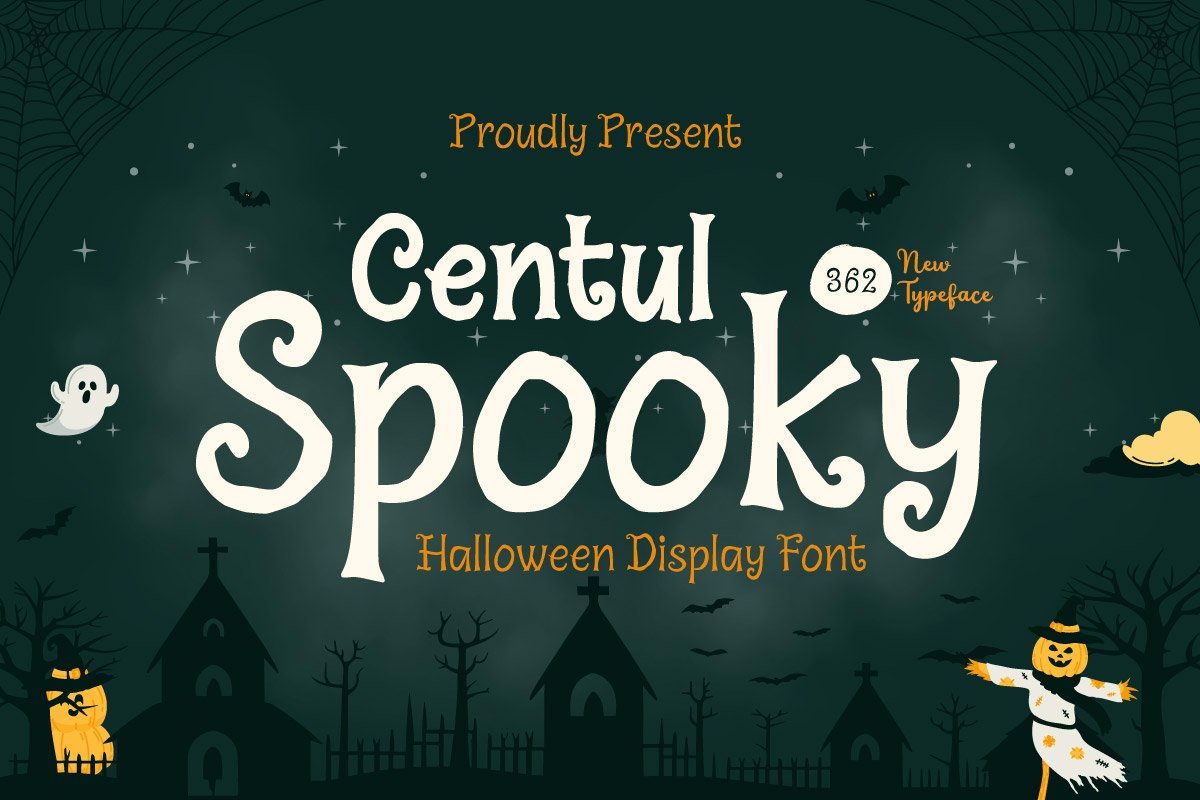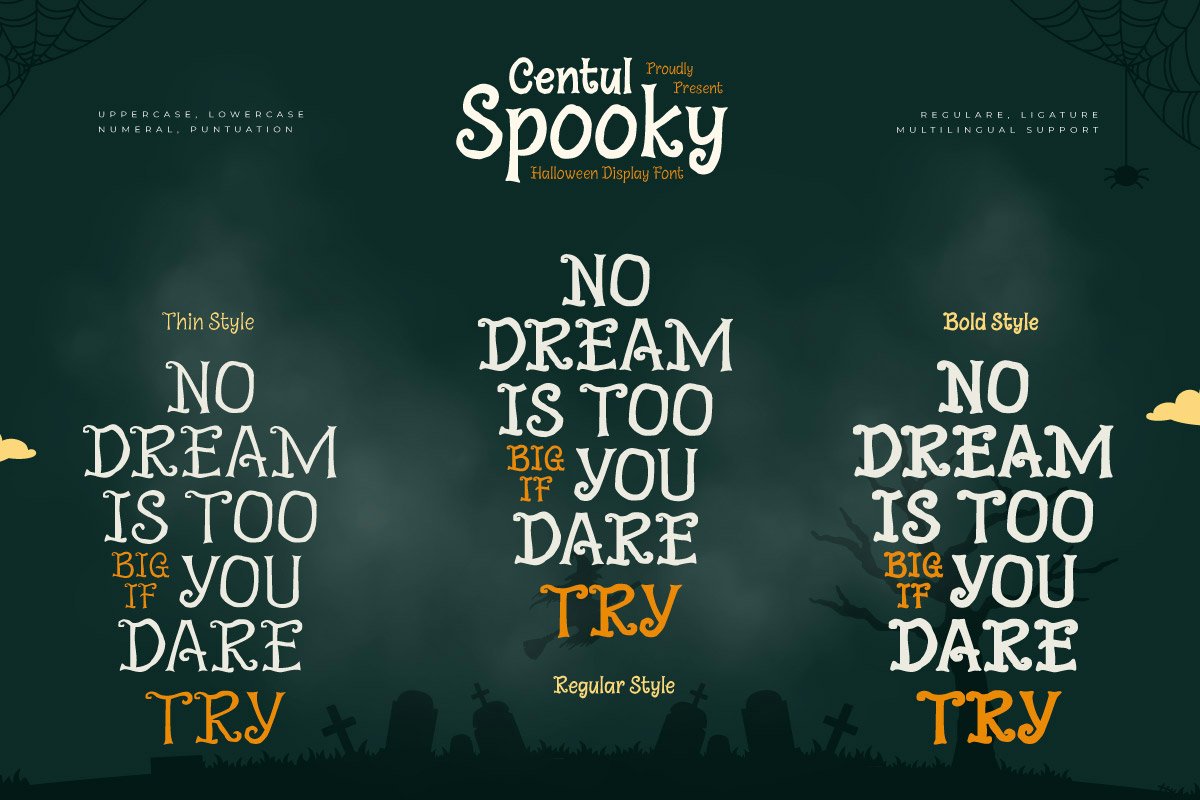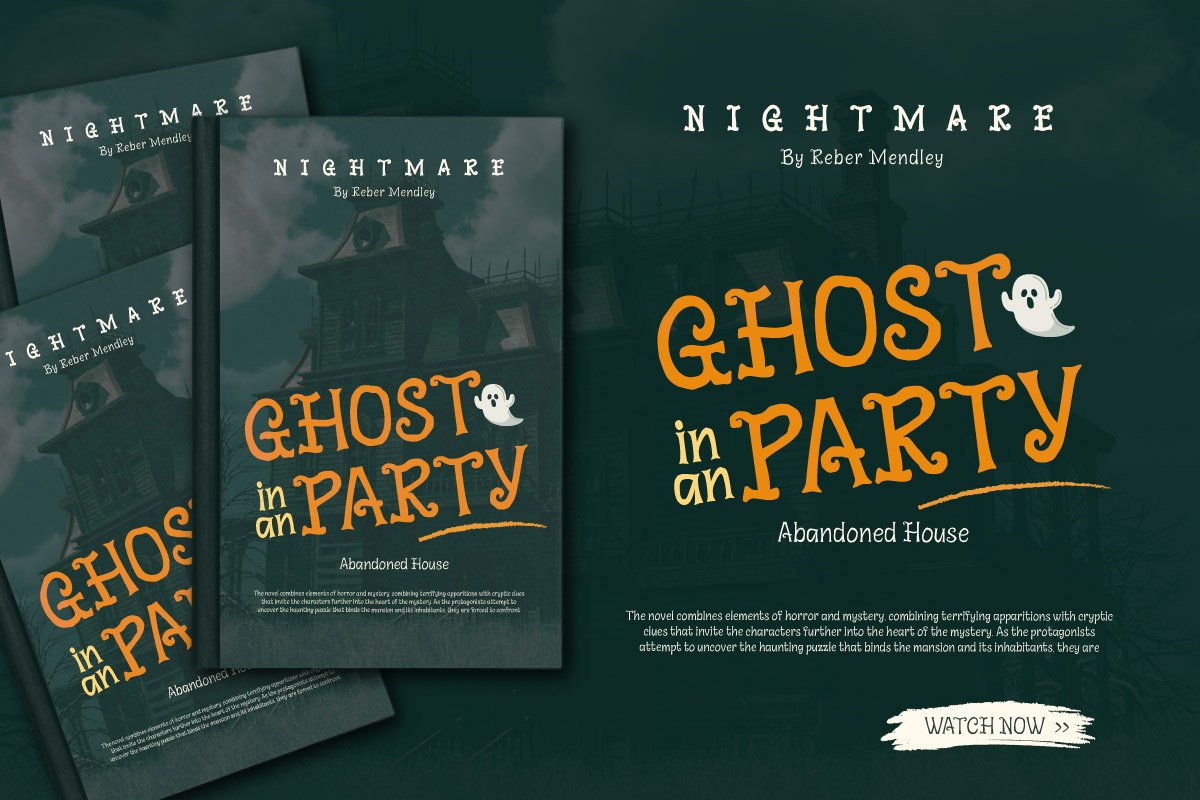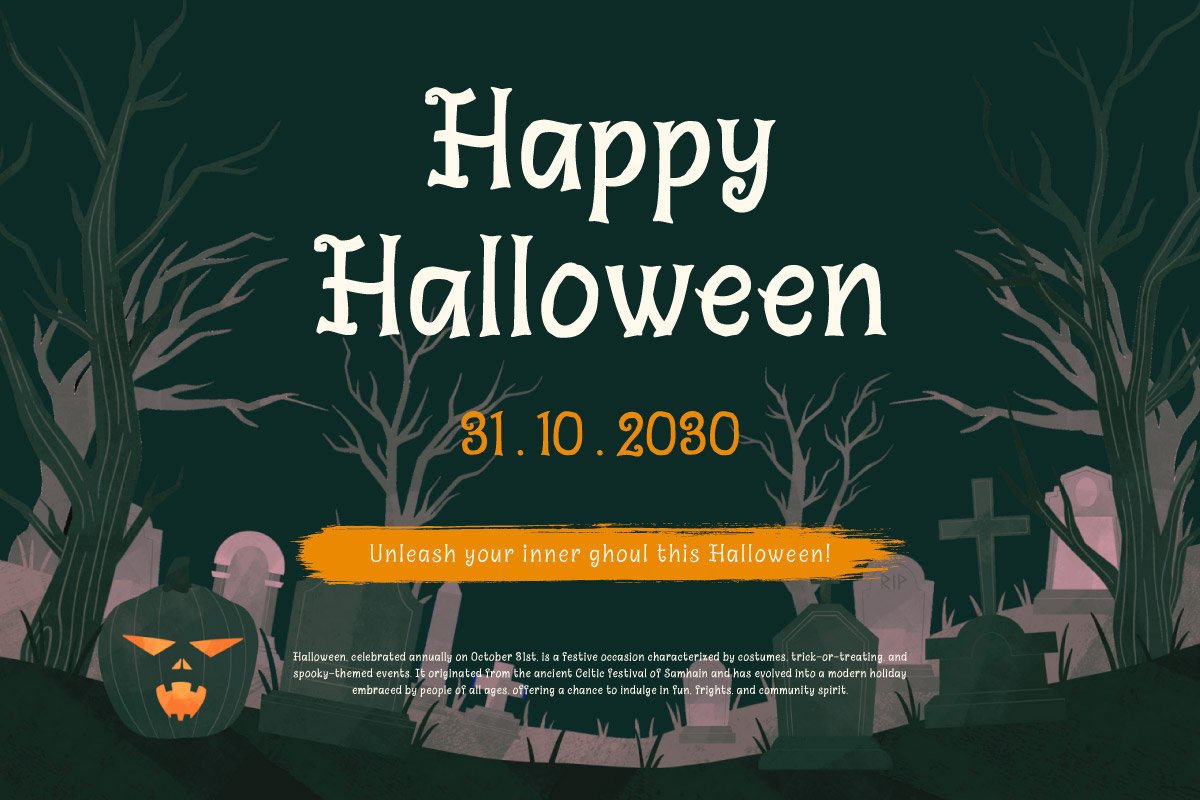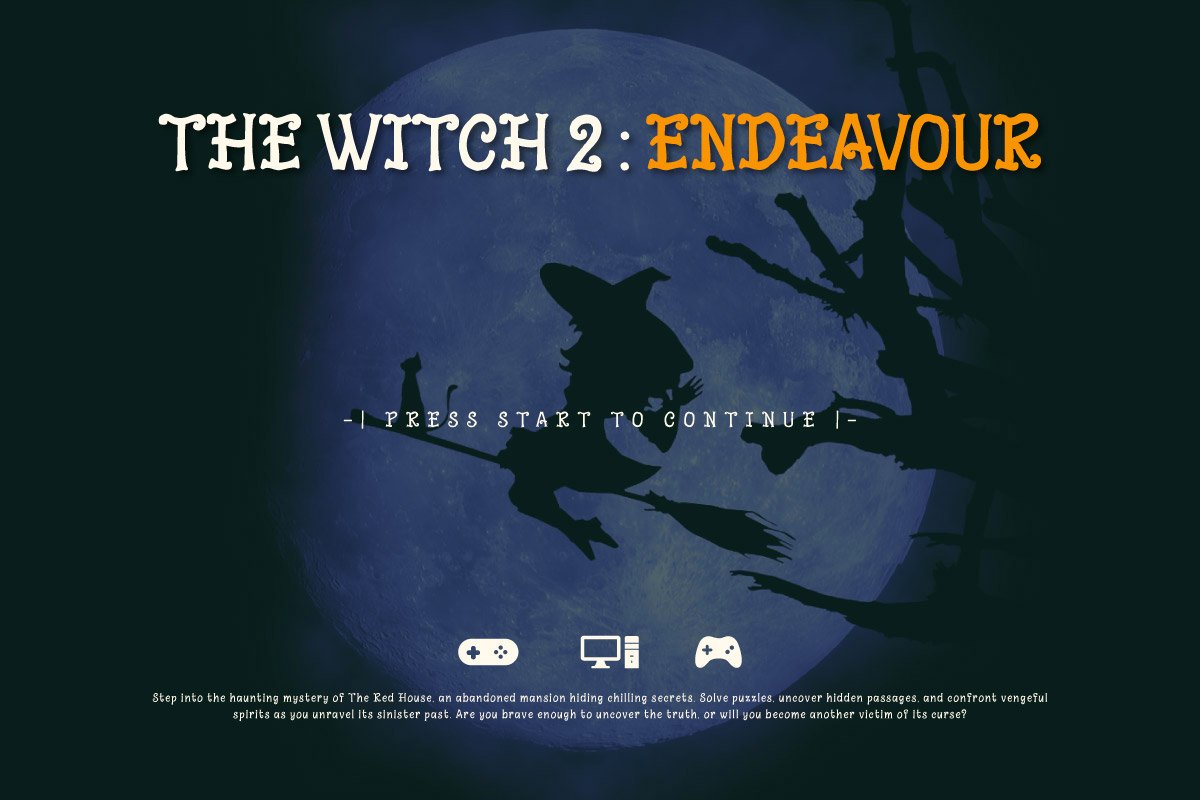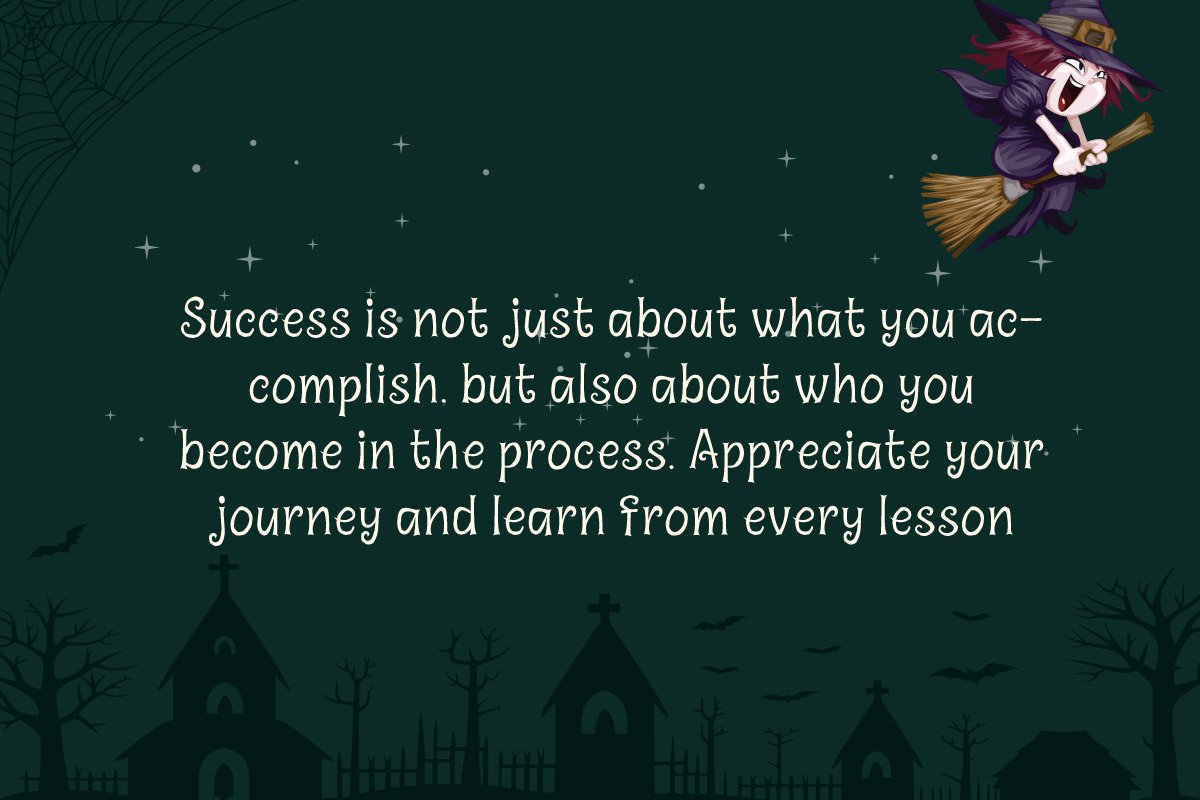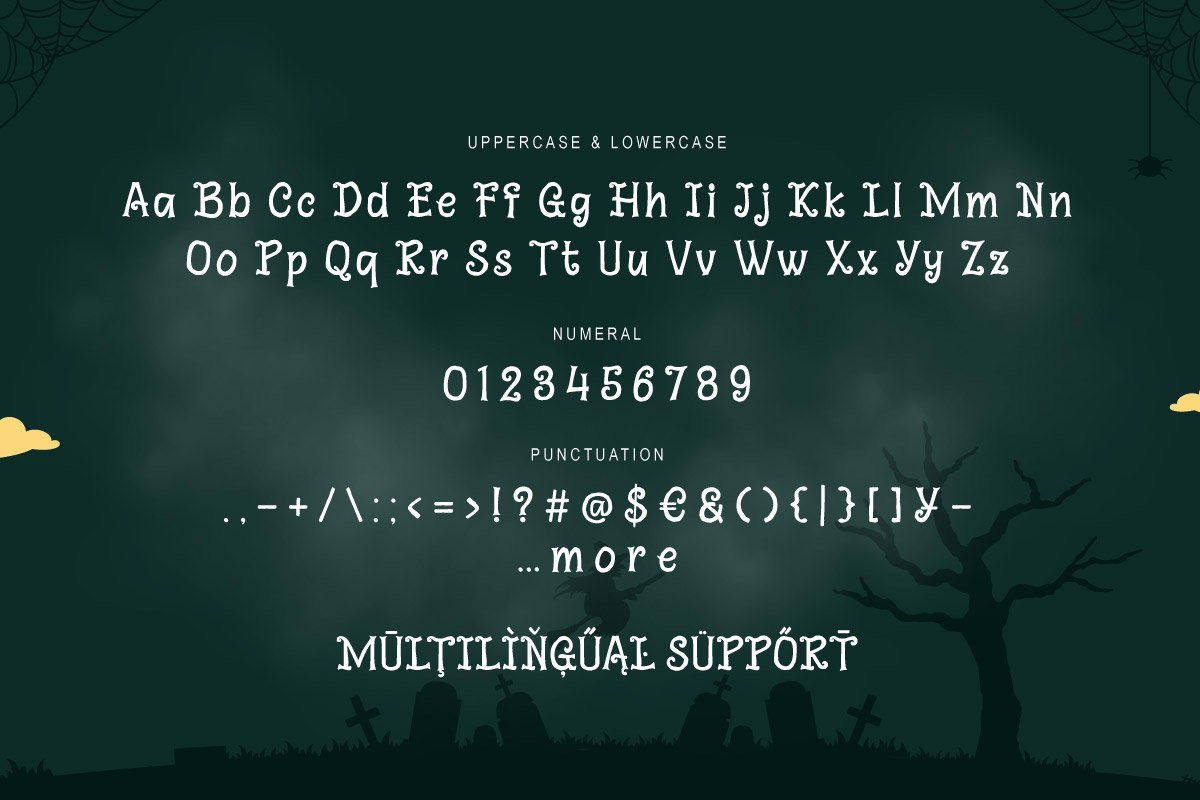
Centul Spooky – Halloween Font
Centul Spooky is a playful Halloween display font that captures the mysterious charm of the spooky season. Designed with thin, regular, and bold styles, it offers flexibility for creating eerie yet fun designs. Its whimsical letterforms bring just the right amount of fright and delight, making it the perfect choice for seasonal projects.
Whether you’re working on Halloween posters, invitations, party flyers, book covers, or digital artwork, Centul Spooky adds a magical and haunting atmosphere to your designs. Each style is crafted to give your work a distinctive personality, from light and mysterious to bold and striking.
With uppercase, lowercase, numbers, punctuation, and multilingual support, Centul Spooky is a versatile typeface that helps your spooky-themed creations shine with character and charm.